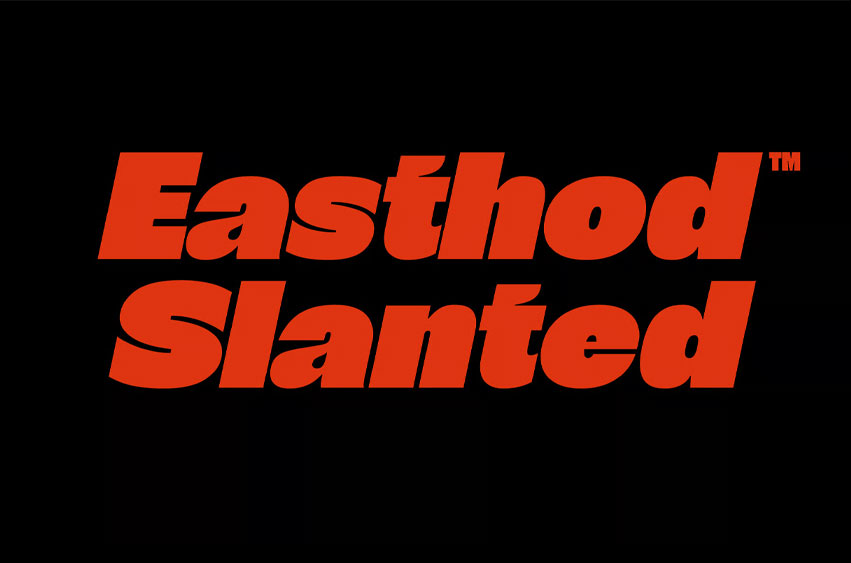
Easthod Slanted Font The powerful and sturdy typeface Easthod comes in slanted variants. It is appropriate for headlines and branding because of its well-balanced proportions and rounded corners, which communicate strength and approachability.
The font’s adaptability for a range of applications is increased by its stylistic set, multilingual support, case sensitivity, ligatures, fractions, and arrow symbols. It is a useful addition to any designer’s toolset because of its unique appearance, which fits perfectly with current design trends.